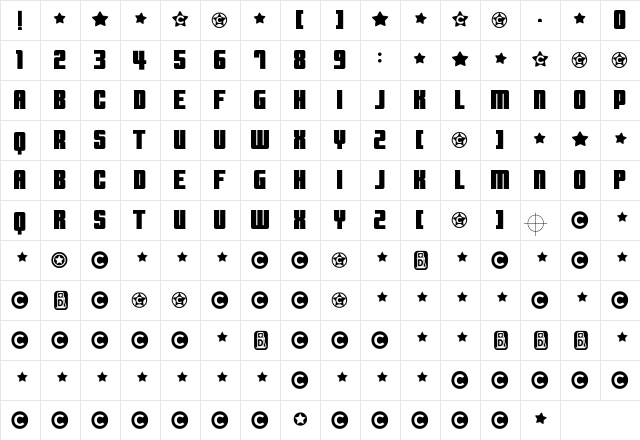
Clearwerkkraftremix Regular
Design Context for Clearwerkkraftremix Typeface
Clearwerkkraftremix takes a measured approach to typography — its balanced proportions and neutral character make it a reliable workhorse for both digital and print work.